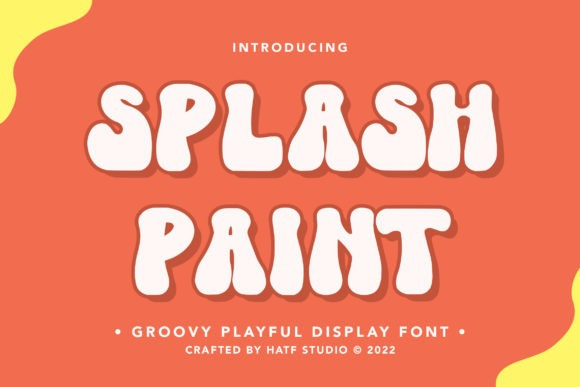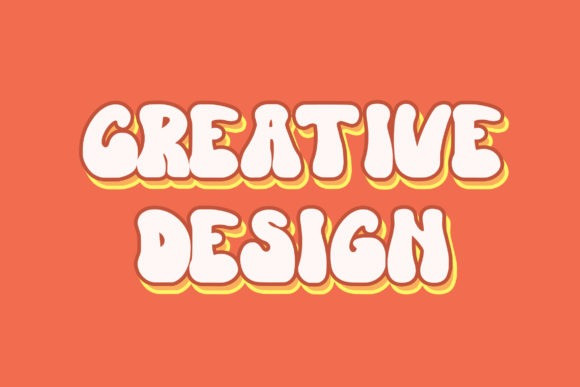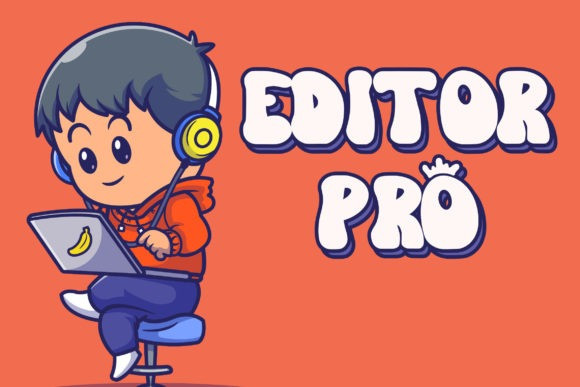
Splash Paint Font
Splash Paint – Groovy Playful Display Font is a font with distinctive handwritten characters perfect for branding projects, logos, wedding designs, media posts, advertisements, product packaging, product designs, labels, photography, watermarks, invitations, stationery, and any project who need handwritten dishes.